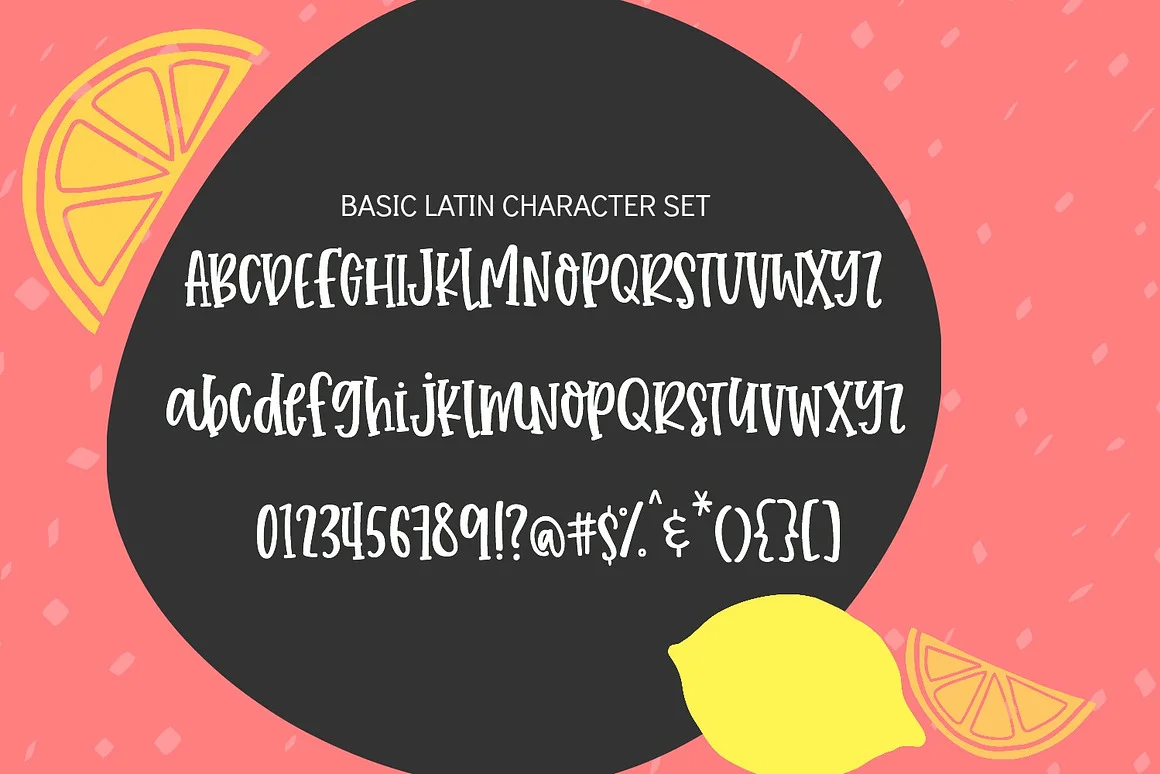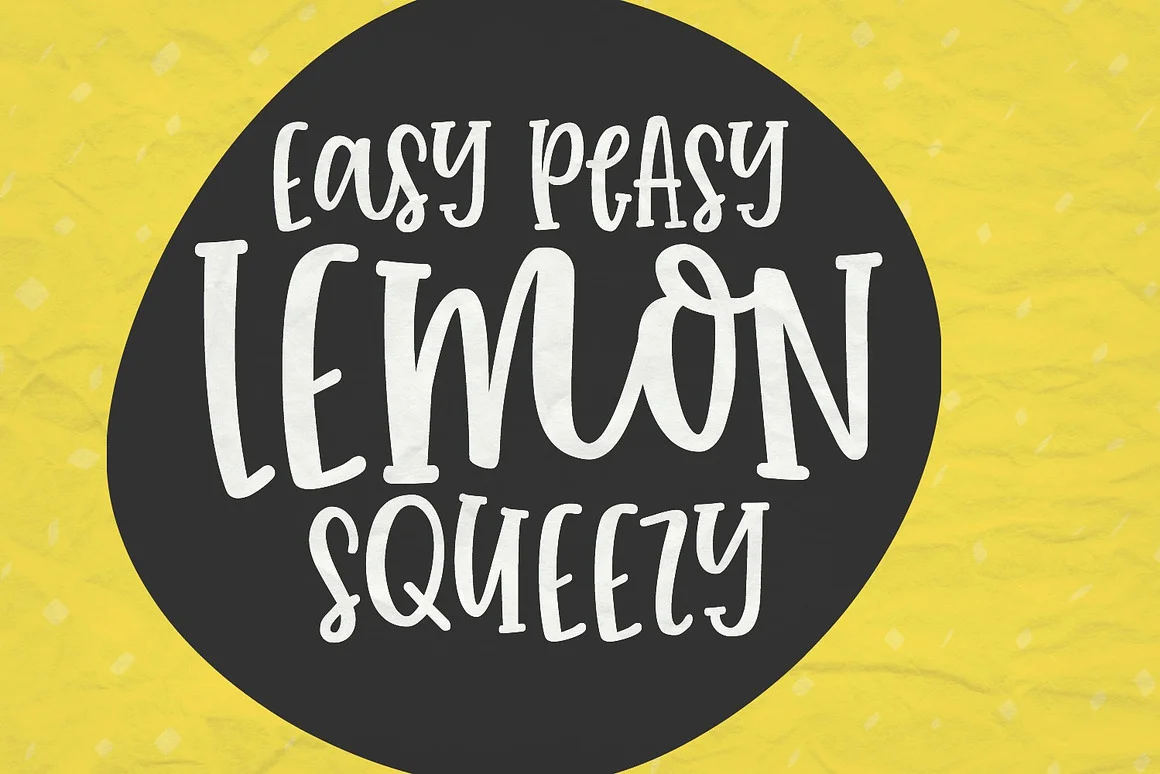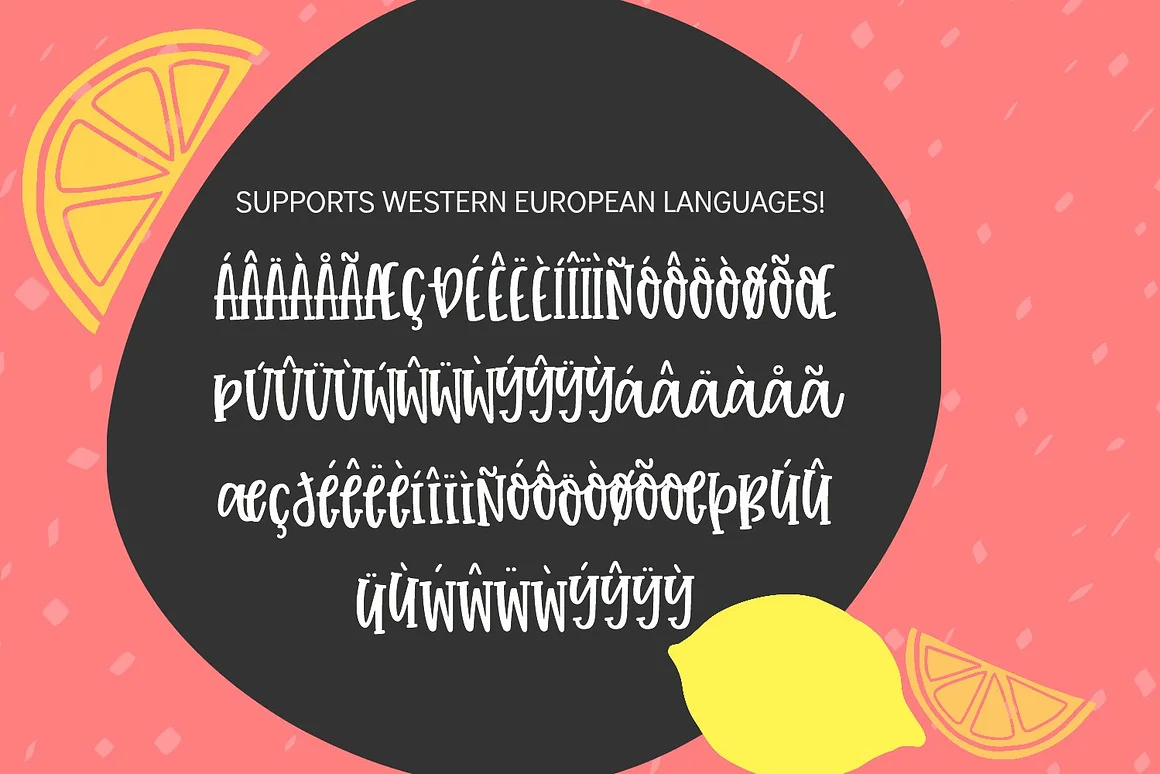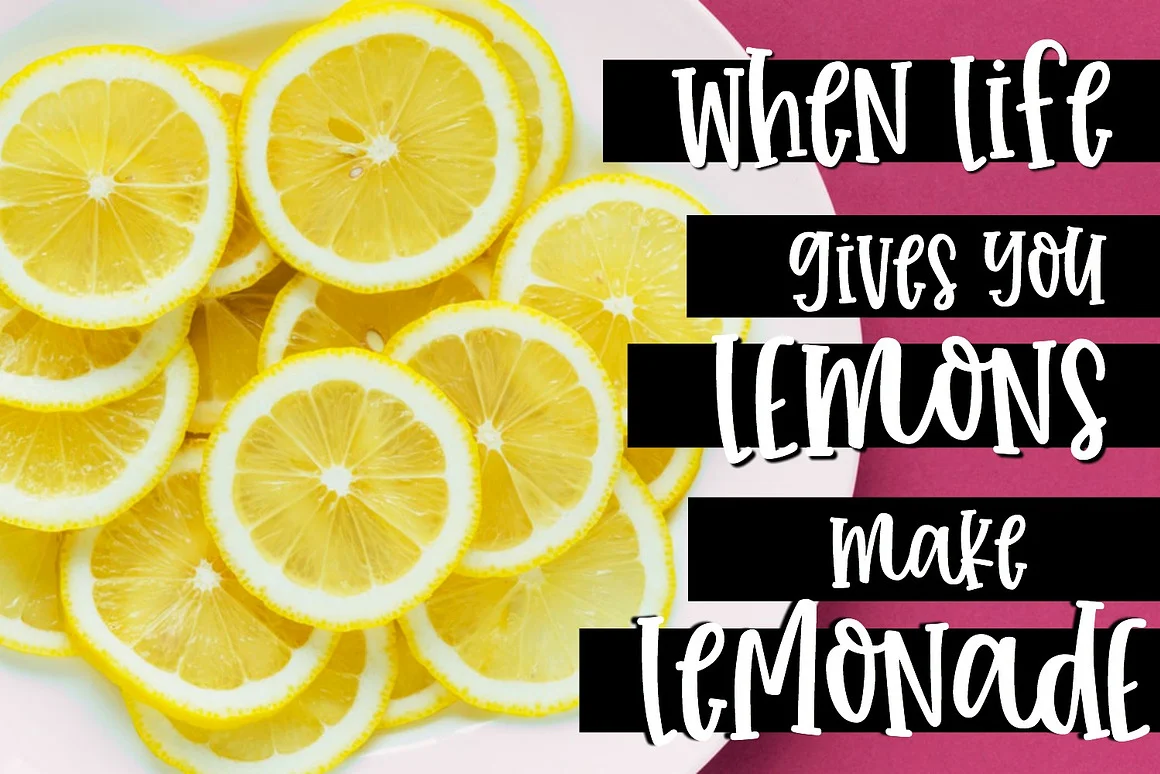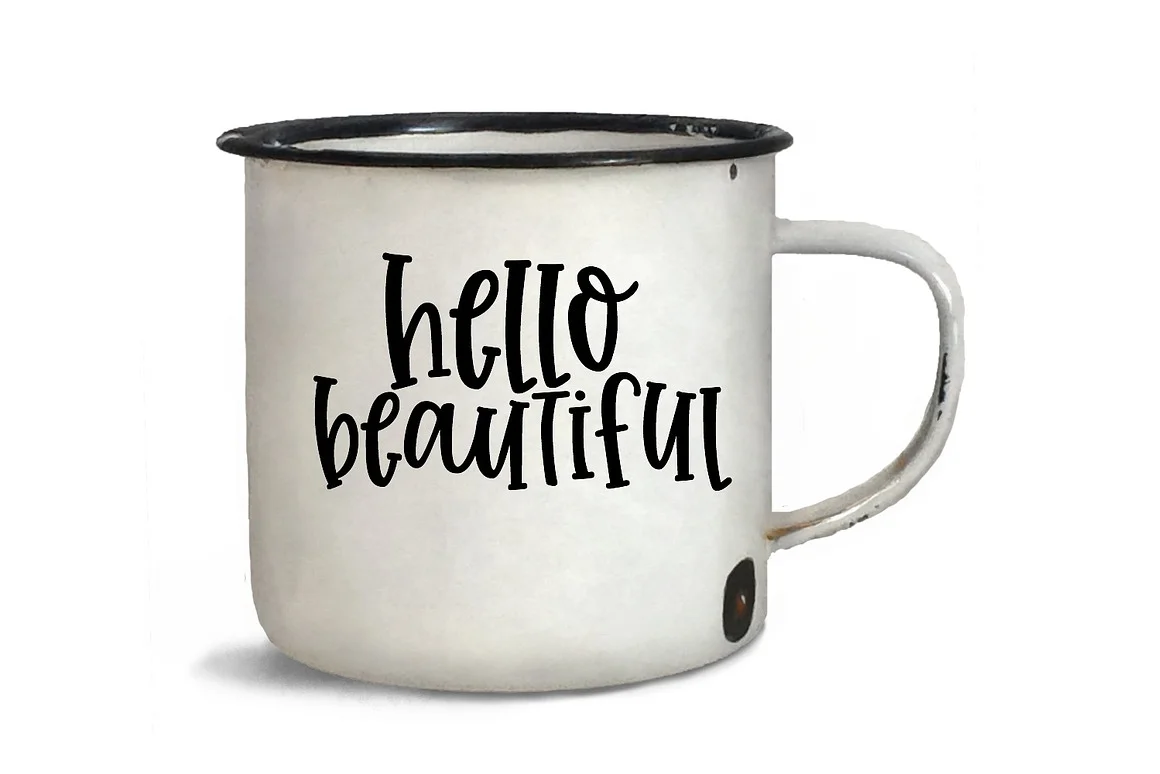
Farmhouse Lemonade Handwritten Font
Few typefaces manage to balance a confident voice that adapts to diverse briefs with genuine day-to-day practicality. Farmhouse Lemonade Handwritten is one of them. The typeface brings a warm, personal sensibility to a broad range of creative disciplines, with visual harmony and precise spacing that holds up whether the work is print-first or screen-first.
In practice, Farmhouse Lemonade Handwritten proves particularly effective for gift packaging, advertising campaigns, web design, logo design, social media graphics. Designers reaching for it find that the type decisions feel resolved rather than laboured — a useful quality when client timelines are tight.
The range of applications extends to thank-you cards, craft labels, wedding signage, packaging design. That breadth is deliberate: the proportions and spacing were stress-tested across a wide range of mock briefs before the typeface was finalised.
The pen angle is consistent throughout, suggesting a single author rather than a composite of assembled letterforms. Slight irregularities in stroke width at entry and exit points reproduce the acceleration and deceleration of a real writing instrument.
The consistent rhythm of Farmhouse Lemonade Handwritten across a full paragraph creates the kind of even grey value that makes extended reading comfortable, a detail that matters more in long-form content than its subtlety might suggest.
Motion designers building title sequences and lower thirds find Farmhouse Lemonade Handwritten a reliable choice for projects that demand both personality and restraint. The design avoids the self-conscious quirkiness that dates quickly, settling instead for considered distinctiveness that holds up over time.